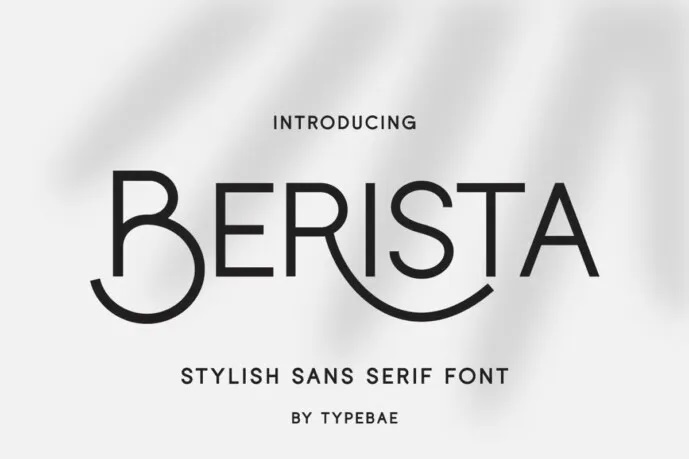
Berista Font
Berista is an elegant and stylish sans serif font, easily integrated with numerous projects and initiatives – make sure to incorporate this font into your creative ideas and watch how it stands out!
Berista Sans Serif Font